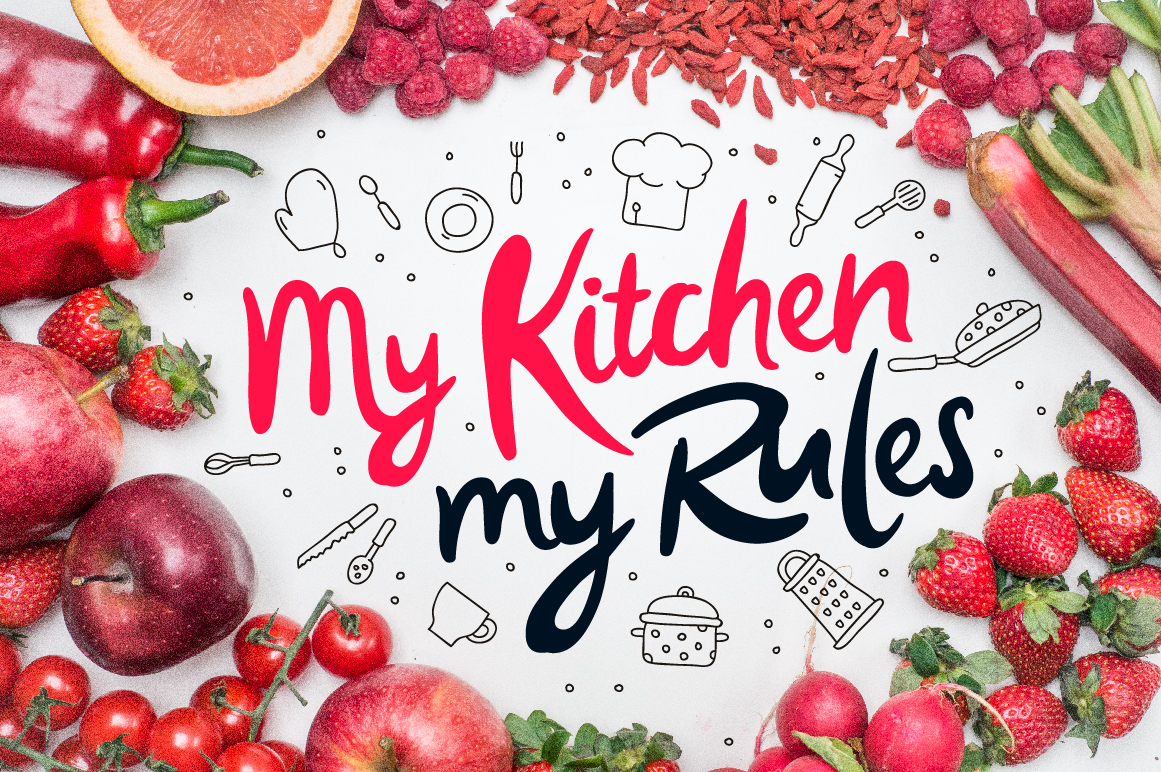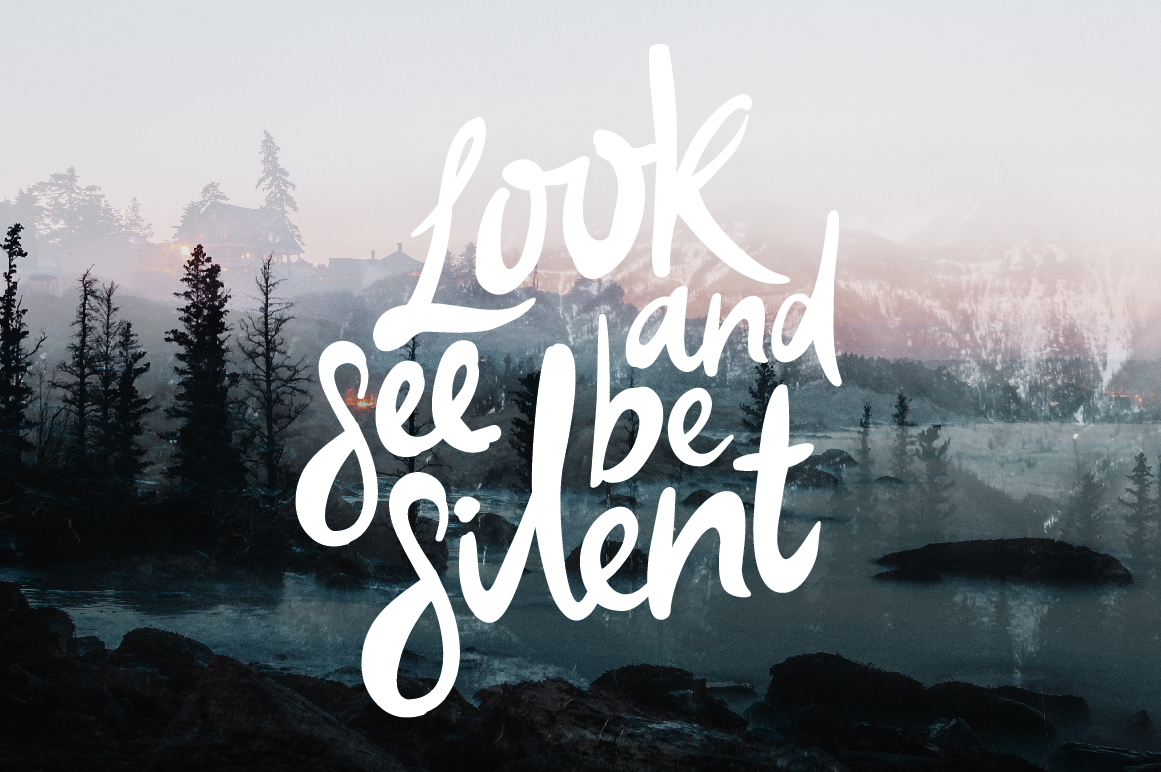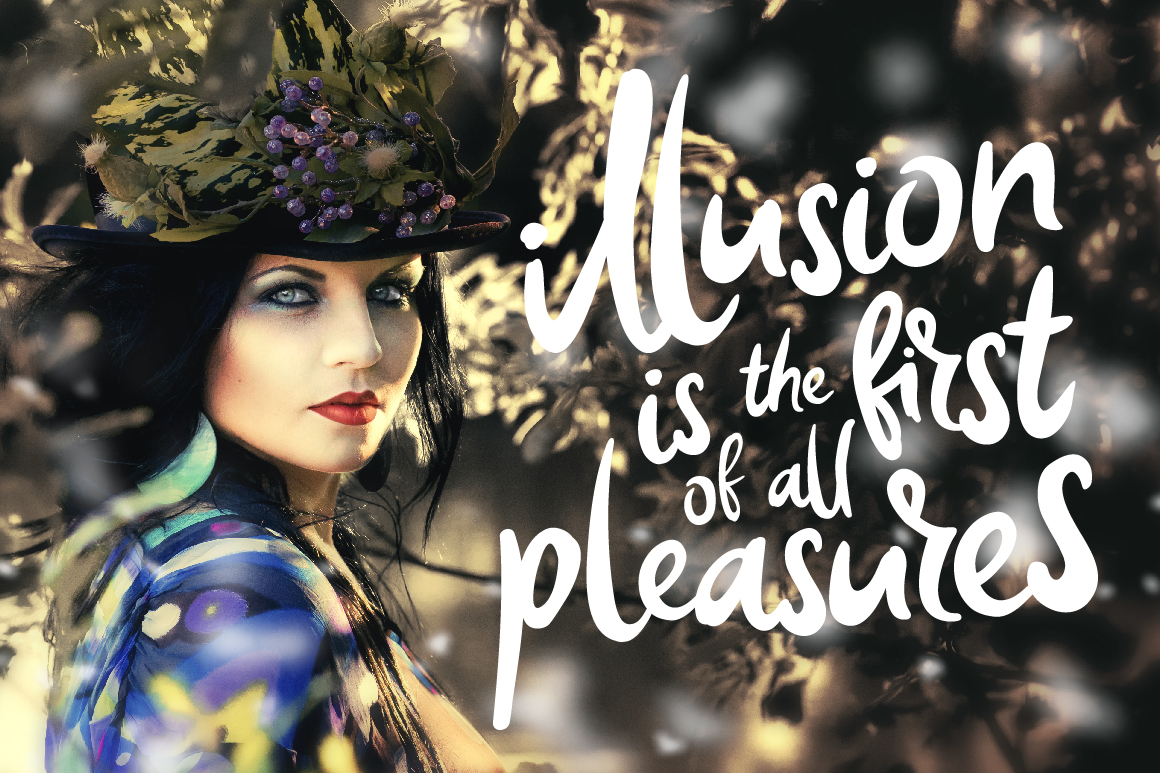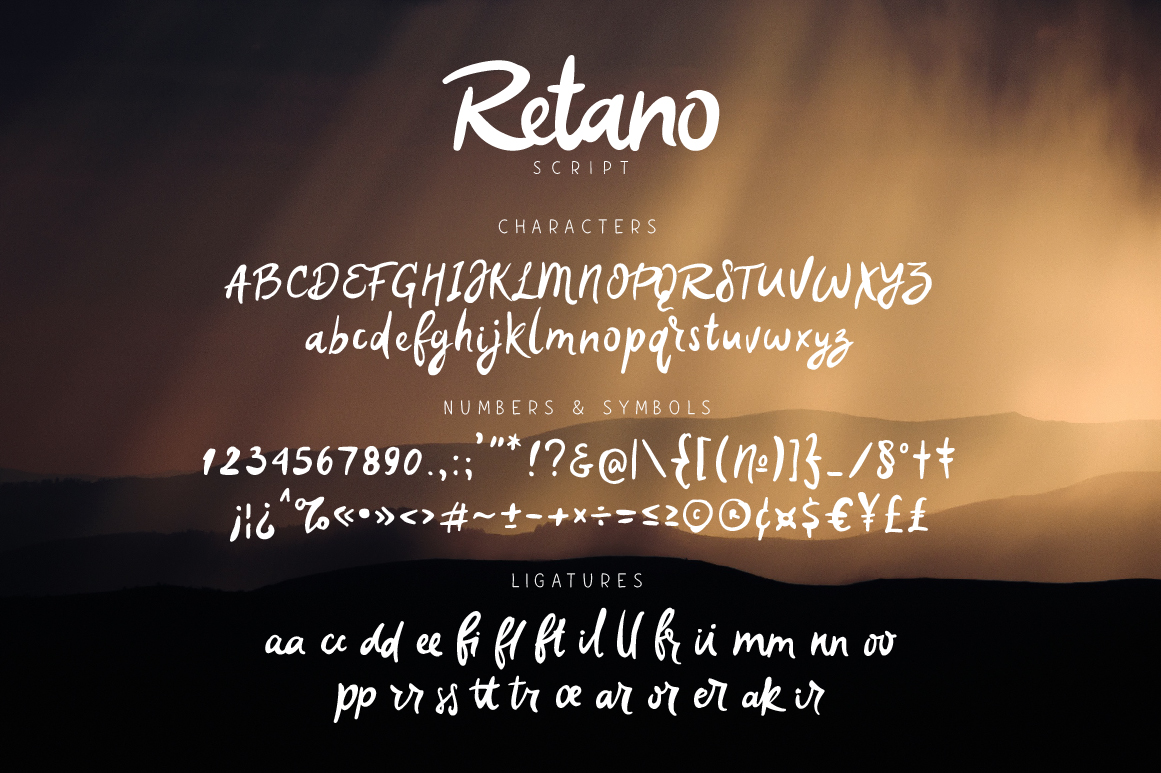
Retano Script Font
Retano is a fun playful script. The edges are soft and smooth, but that doesn’t stop it from having a water-painted feel.
Retano Script contains a full set of lower & uppercase letters, large range of punctuation, numerals and international support. Perfect for quotes, posters, branding projects, product packaging, t-shirt, greeting cards and etc.